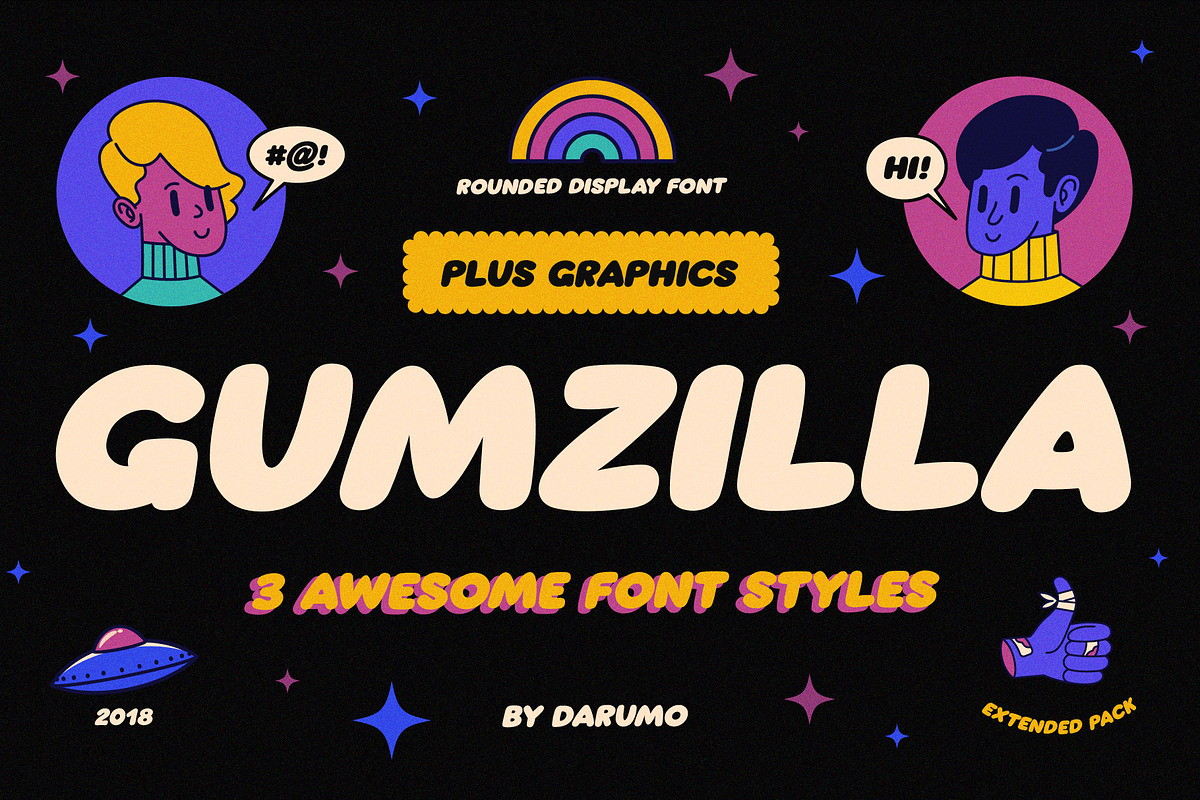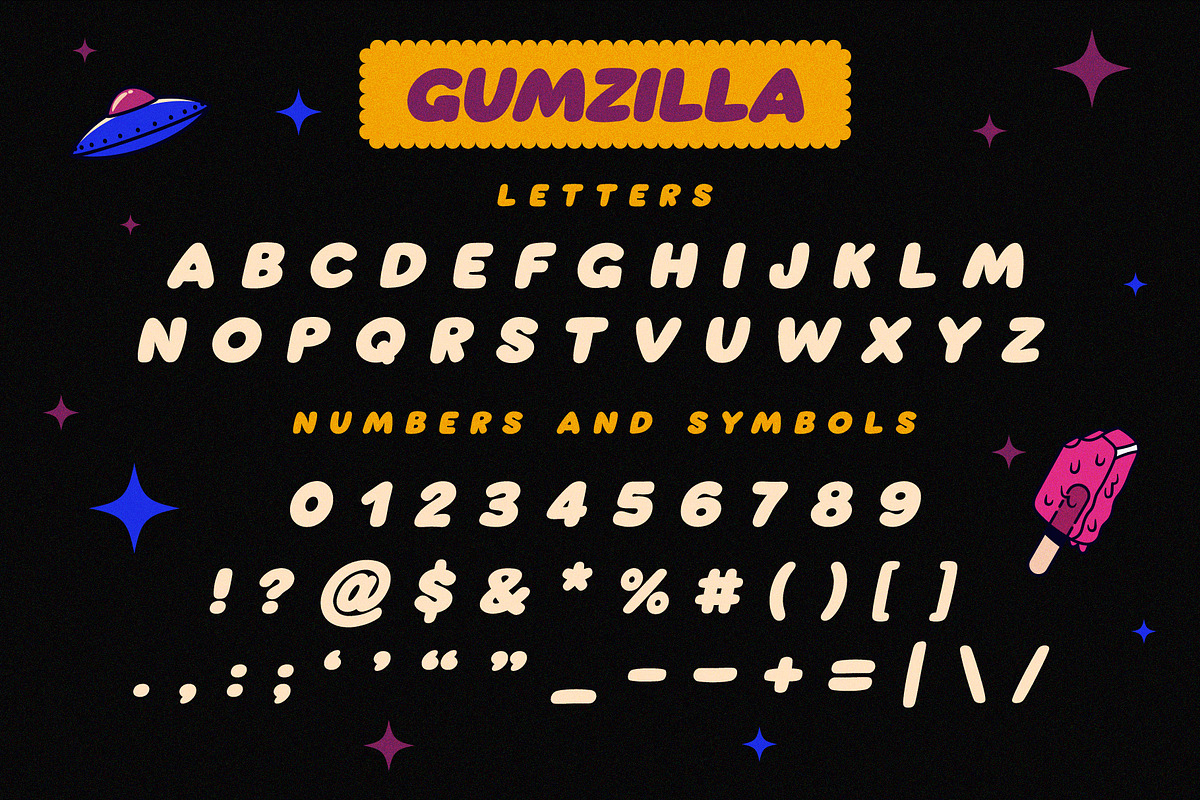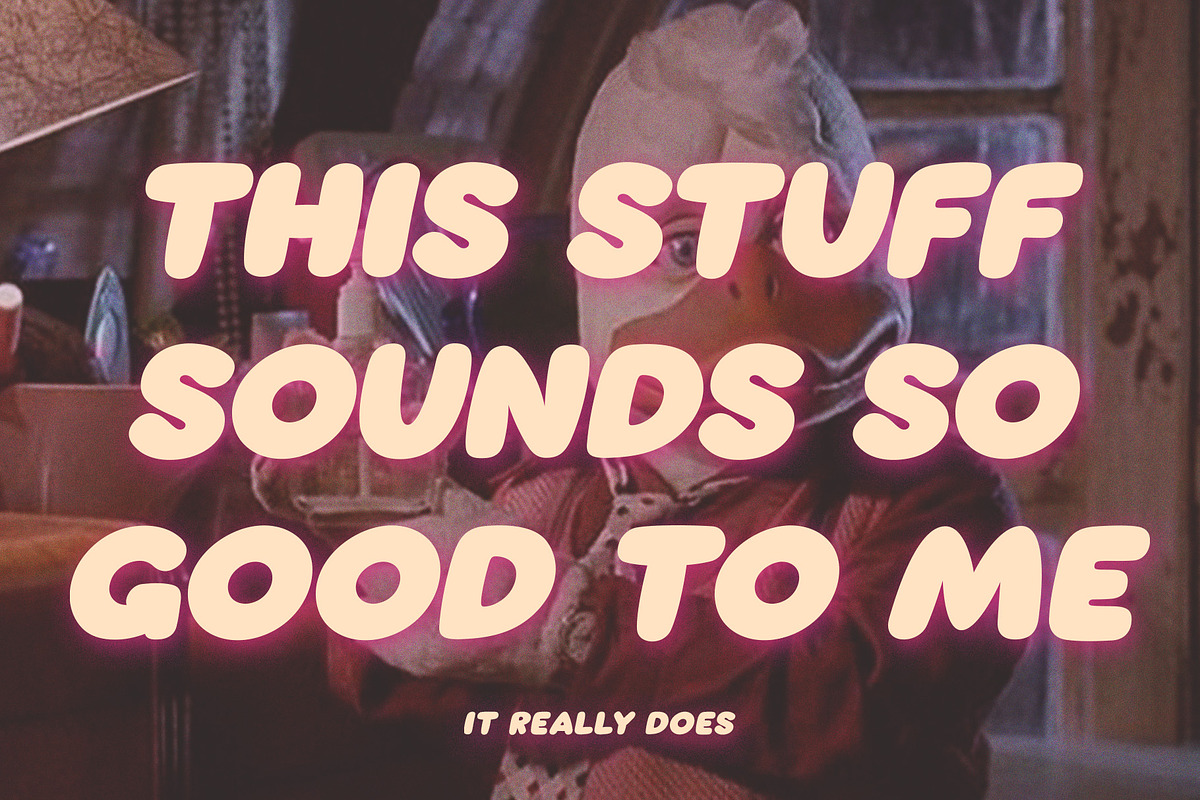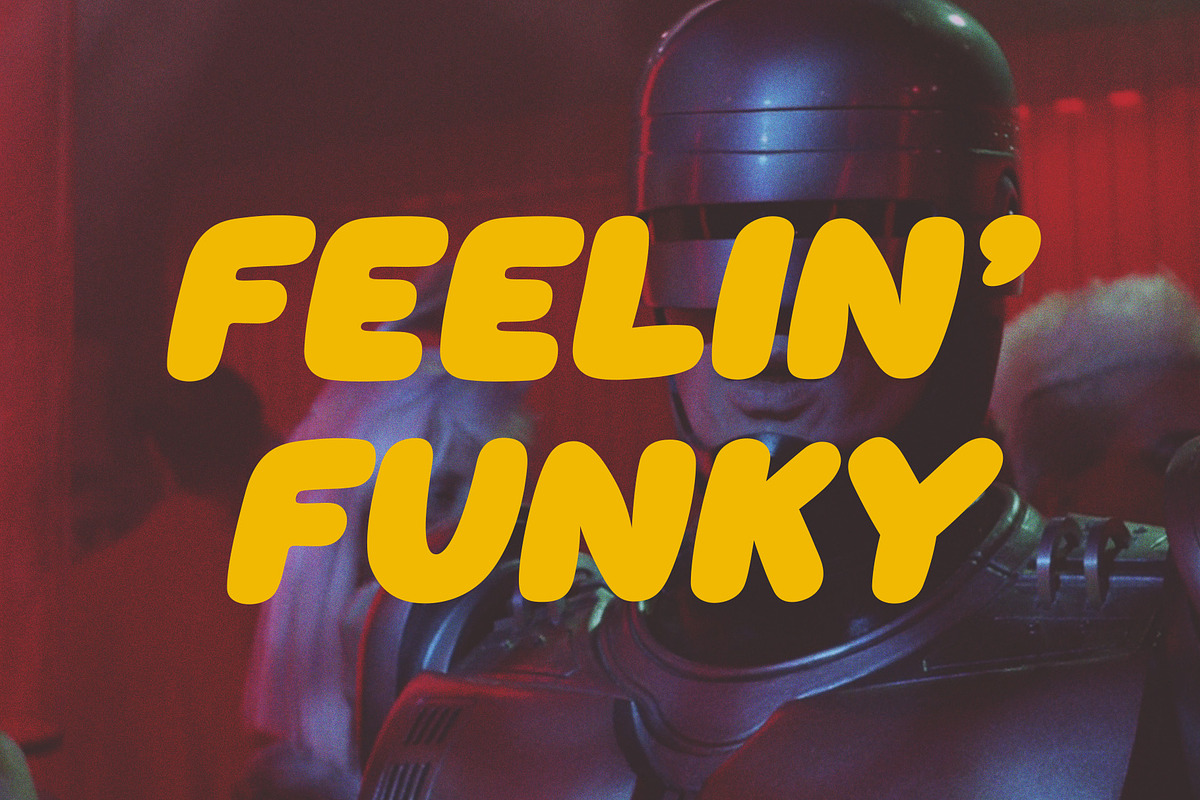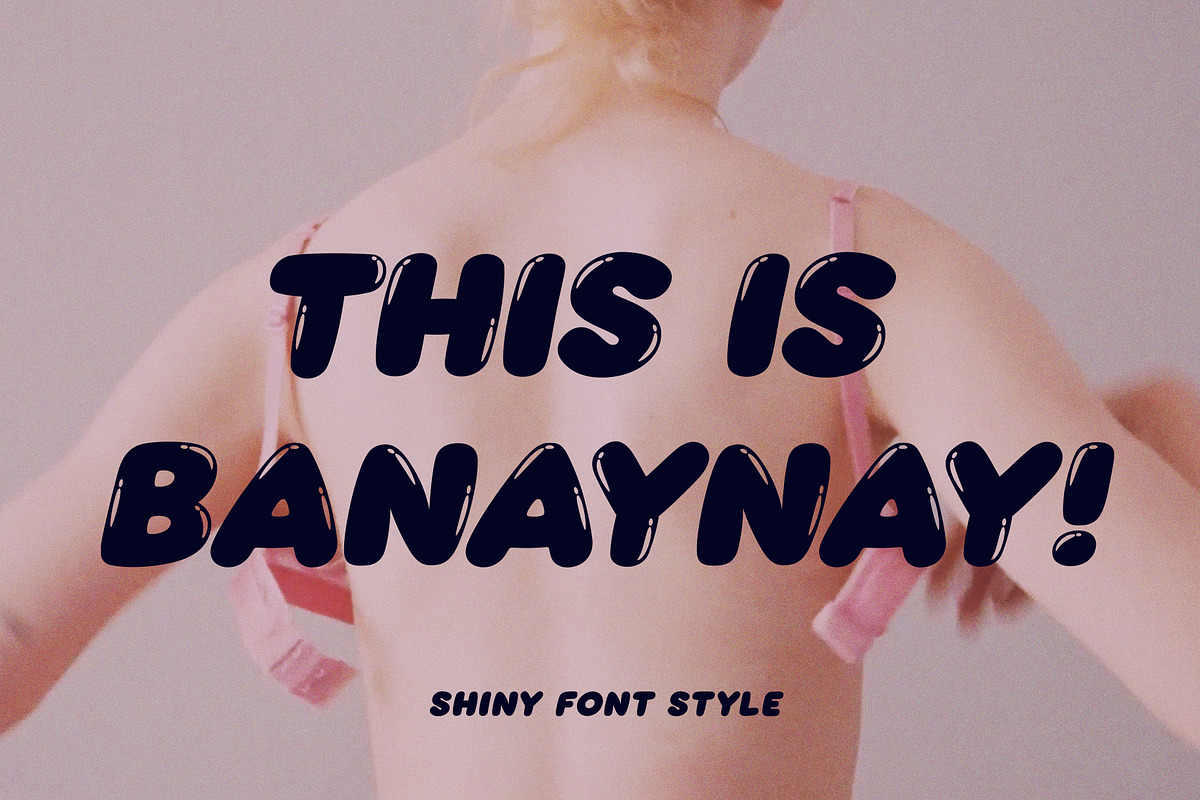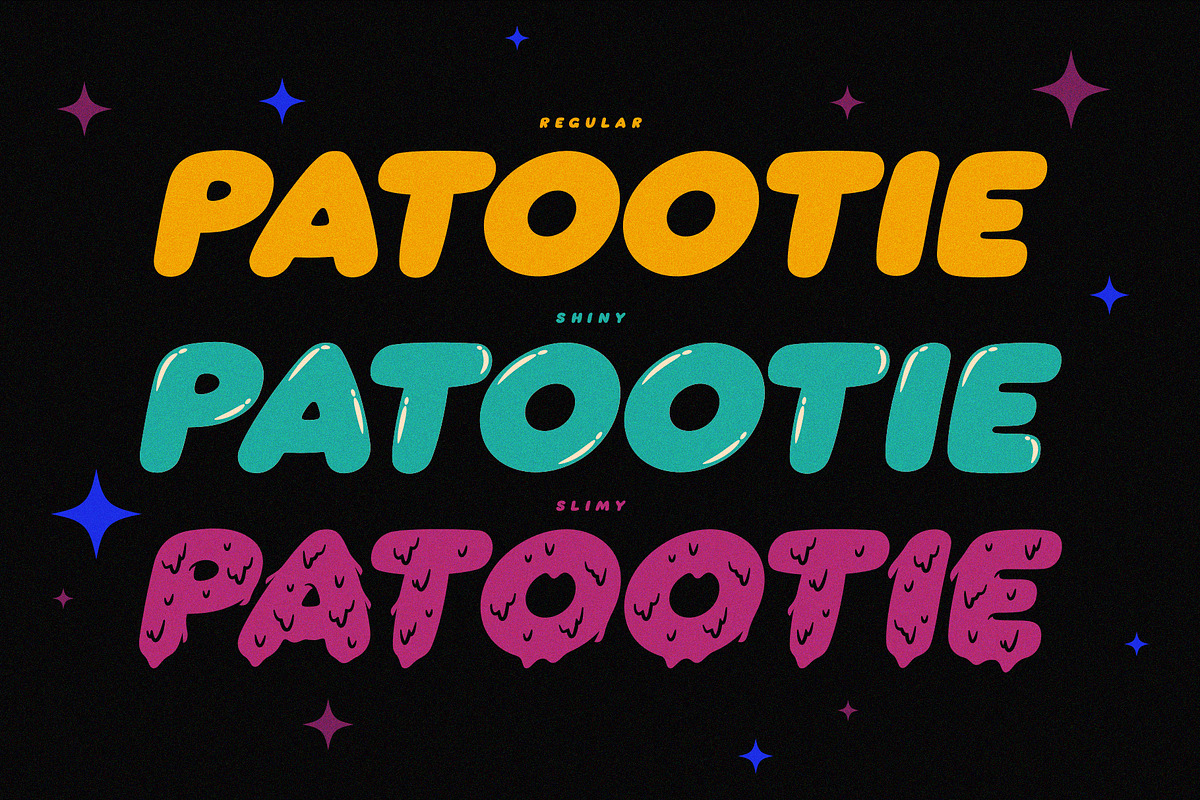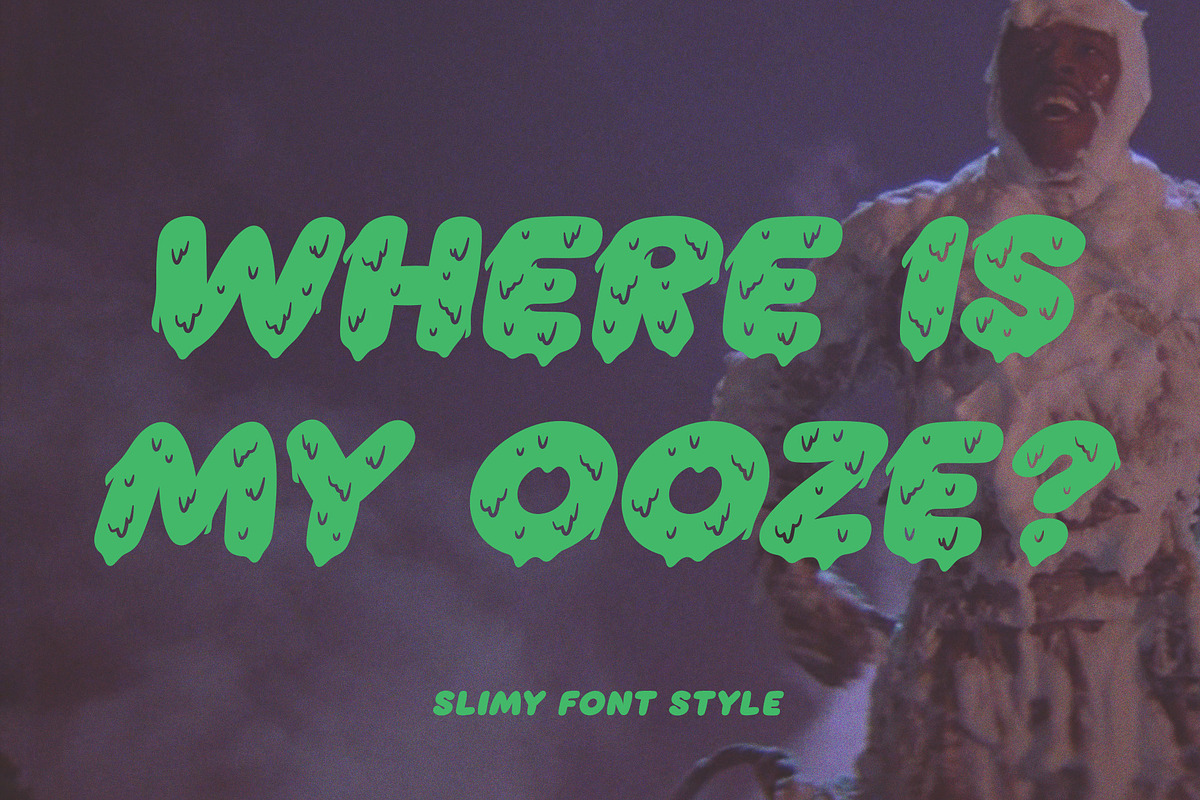
Gumzilla Font Plus Graphic Pack
Introducing GUMZILLA, a rounded font with 3 styles (regular, shiny and slimy). It is inspired by 80s and 90s package design aesthetic, but it looks fresh and could be used in many different ways. Perfect for big headers and for text blocks also. Also, this pack contains a set of doodles and seamless patterns in order to facilitate your design process. Have fun using it!
- It is inspired by 80s and 90s package design aesthetic, but it looks fresh and could be used in many different ways.
- Gumzilla Regular
- Gumzilla Shiny
- Gumzilla Slimy